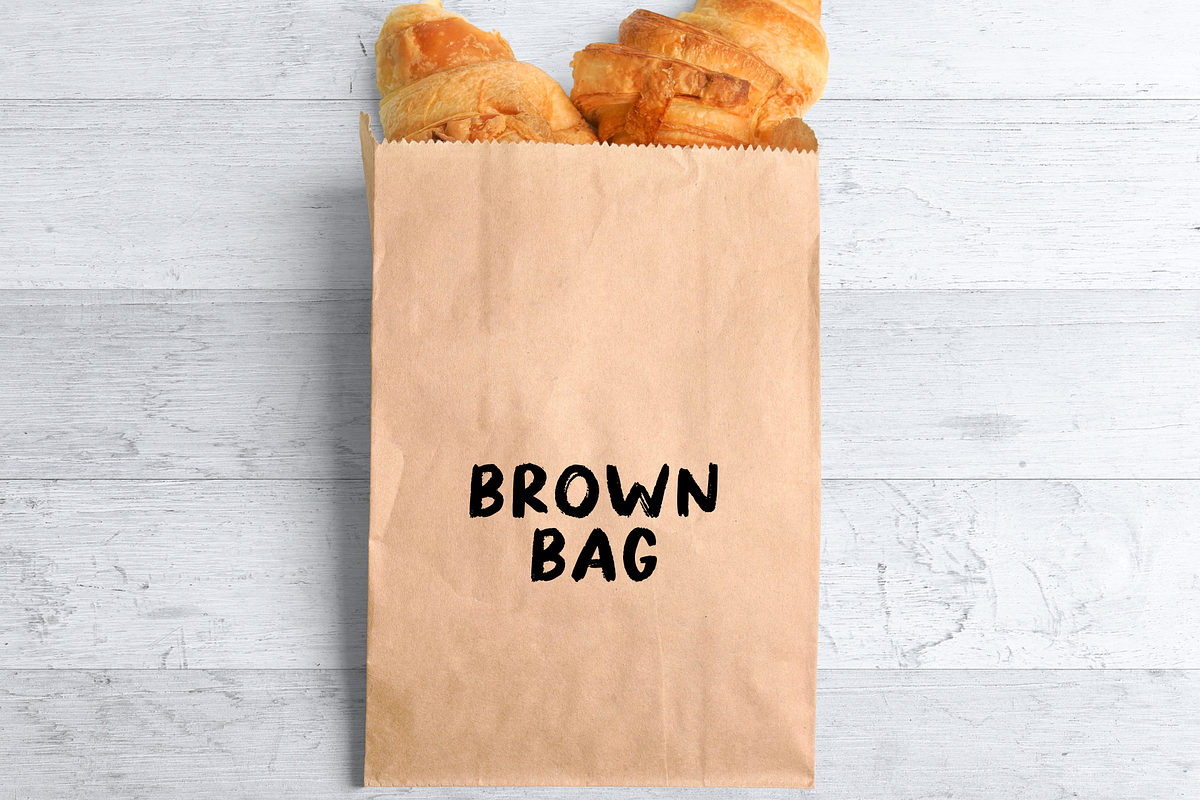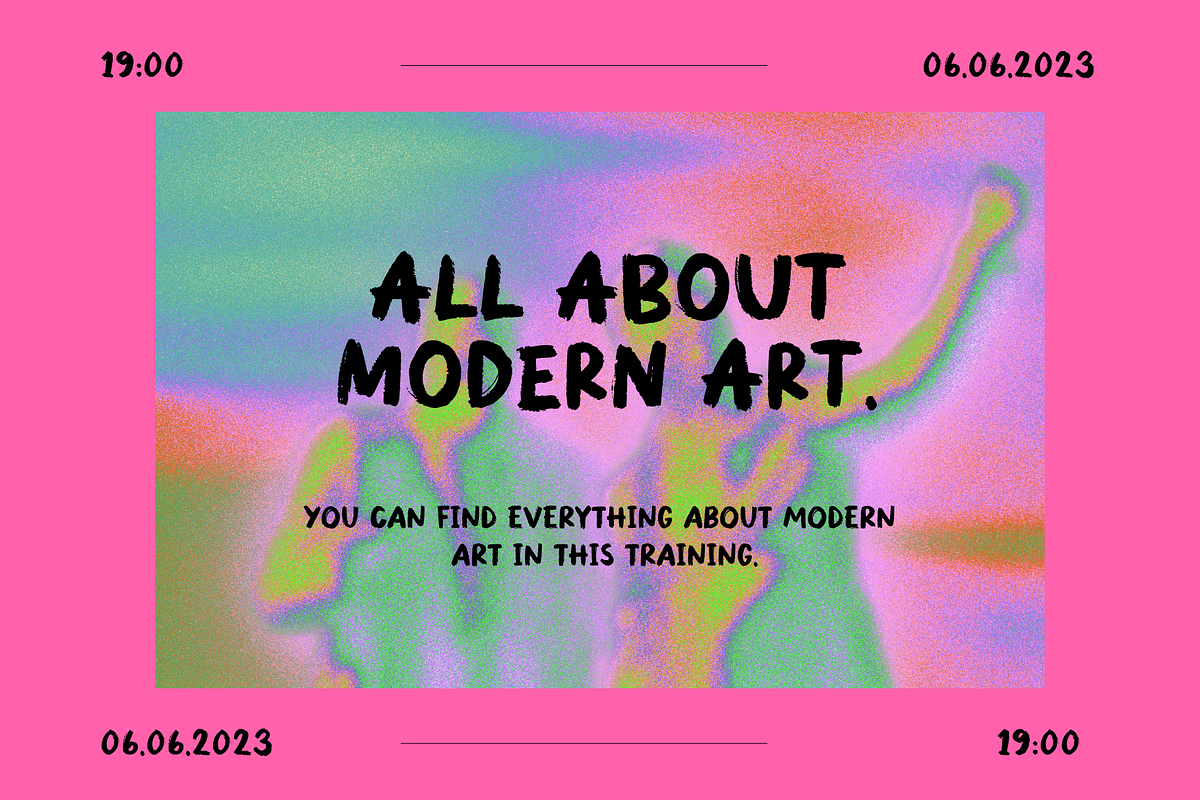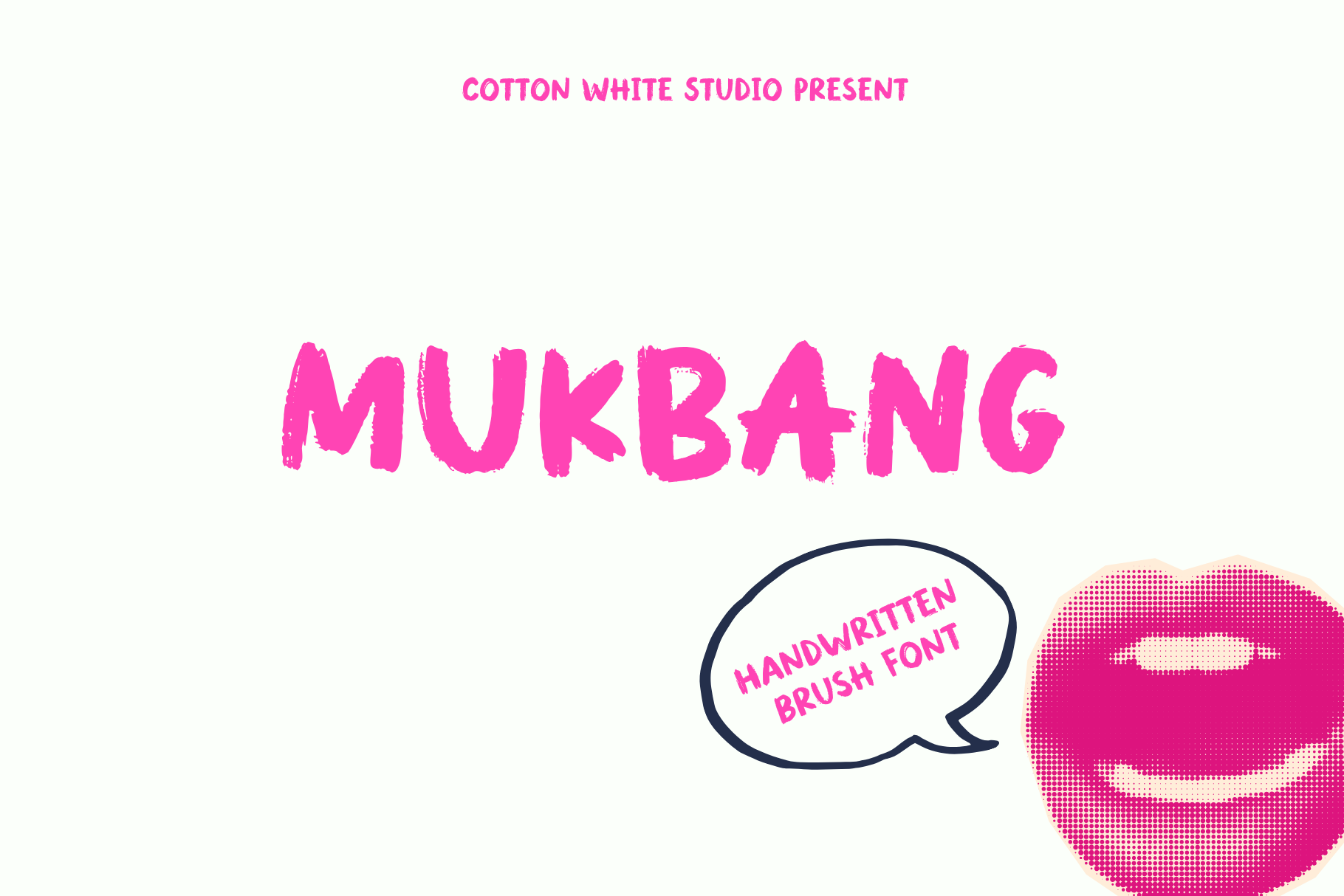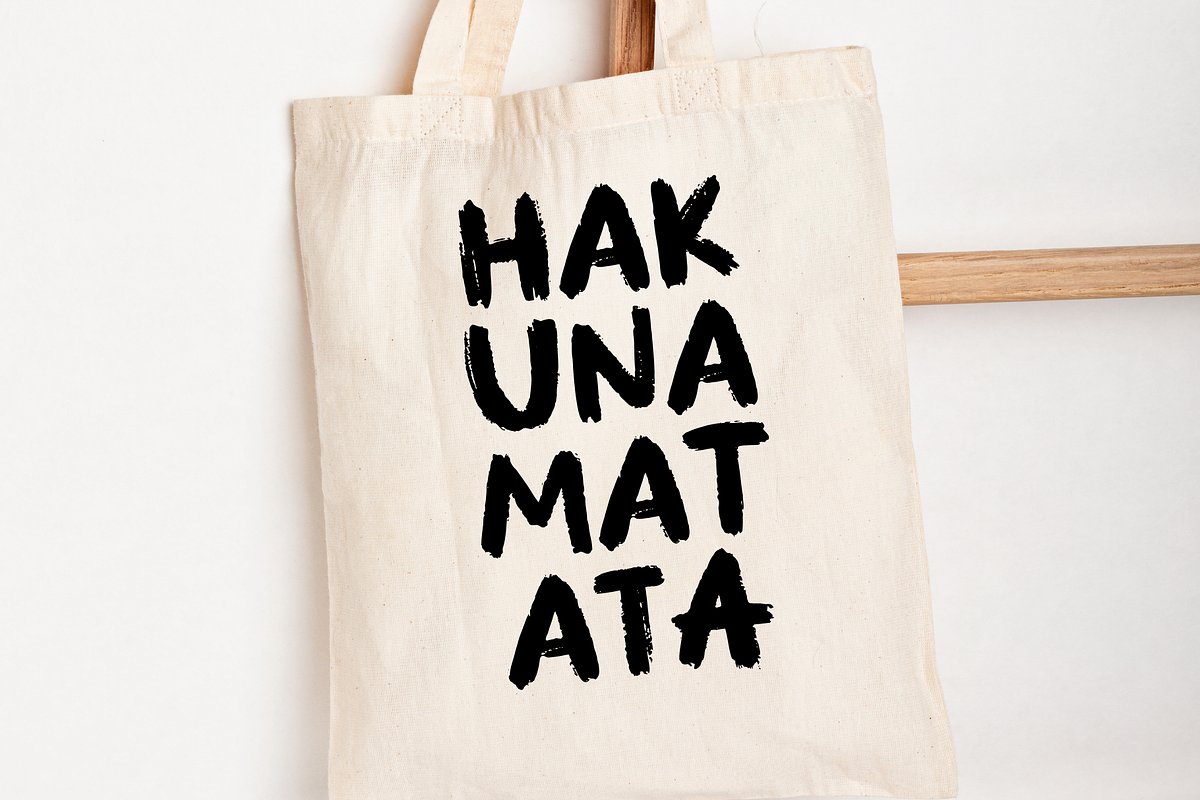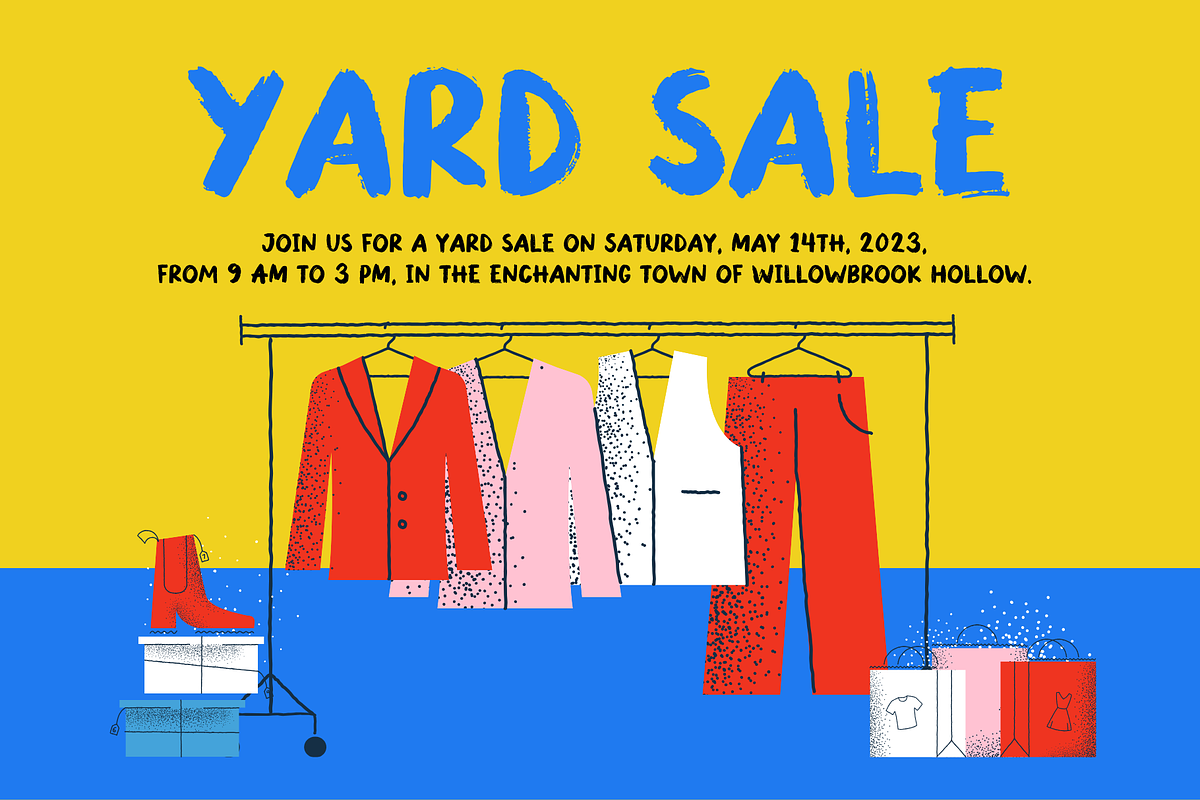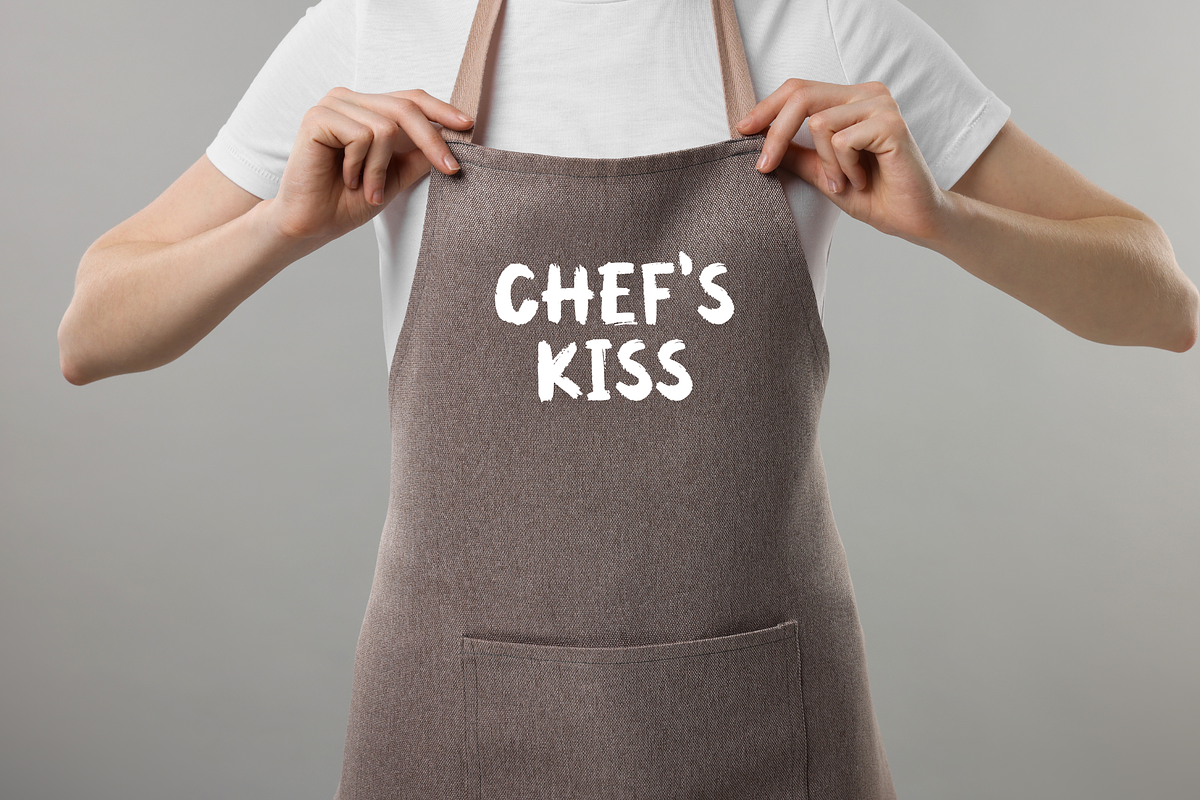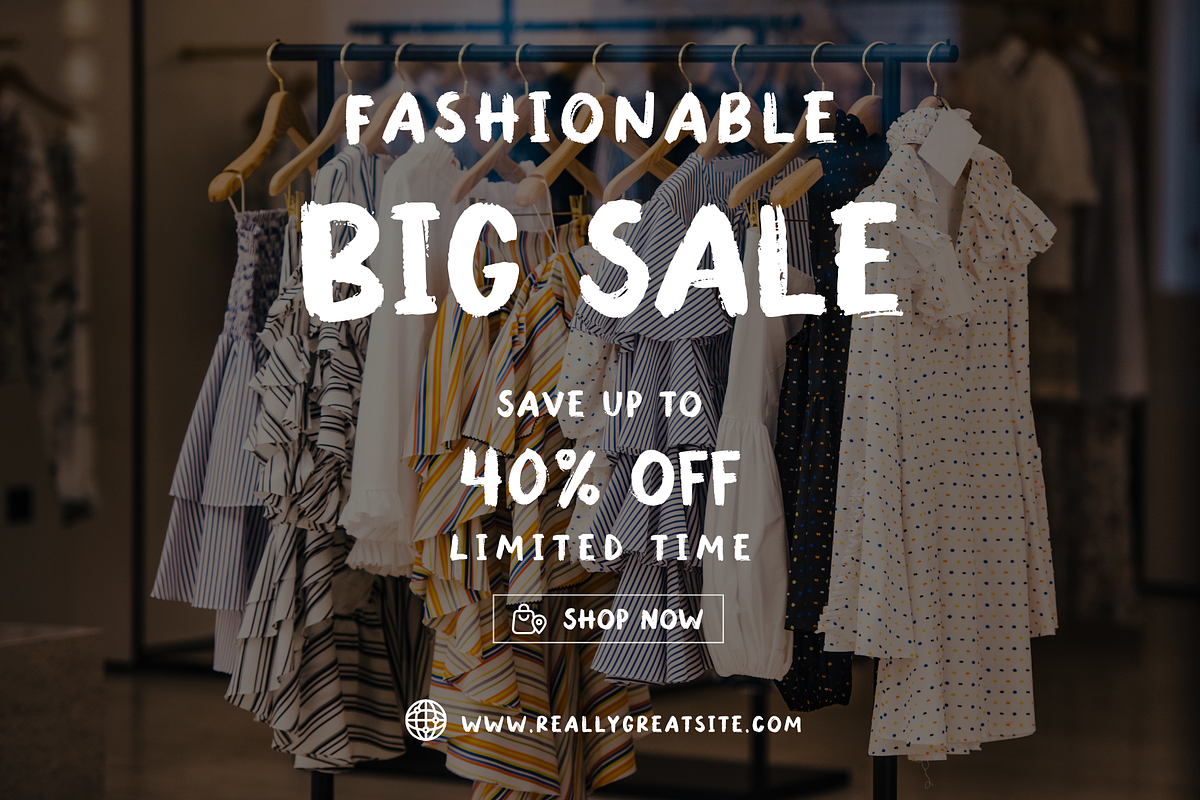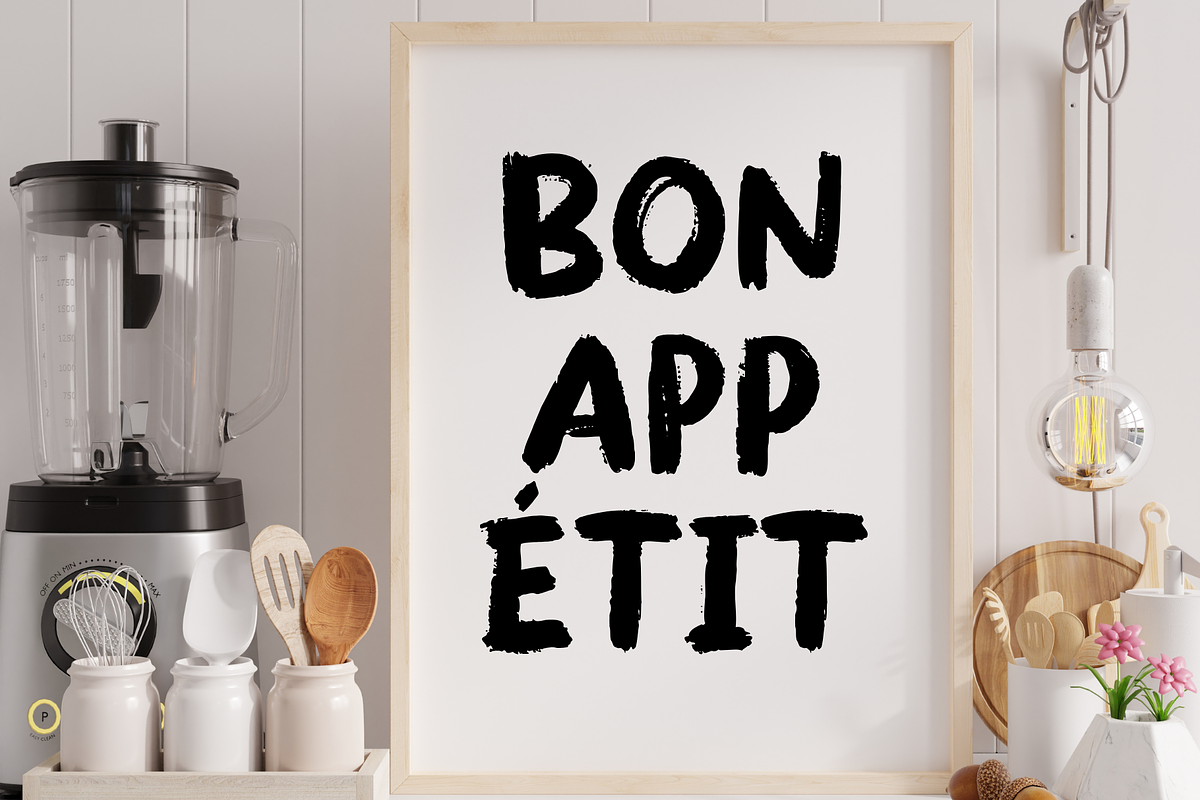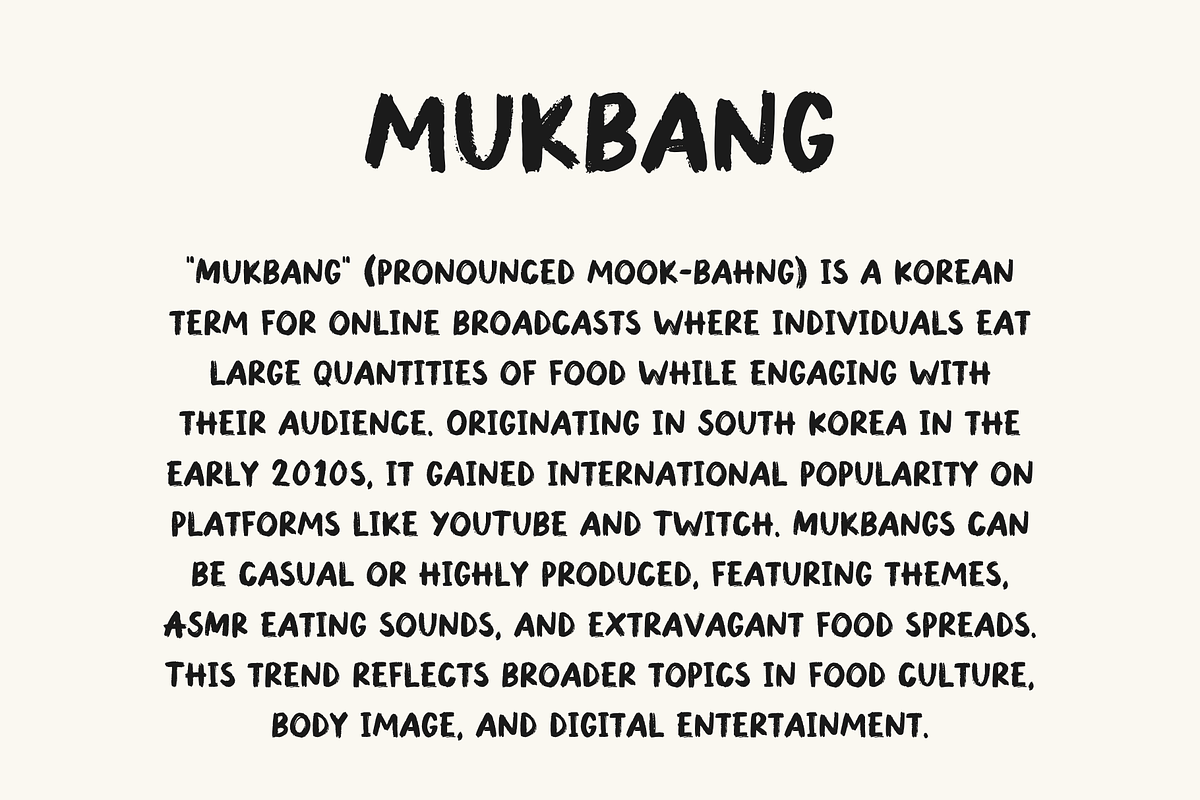
Mukbang Brush Font
Greetings, everyone! I'm excited to present Mukbang, a simple and rustic brush font. Perfect for a range of projects, including branding, labels, photography, invitations, stationery, social media posts, advertising, product packaging, product design, and much more.